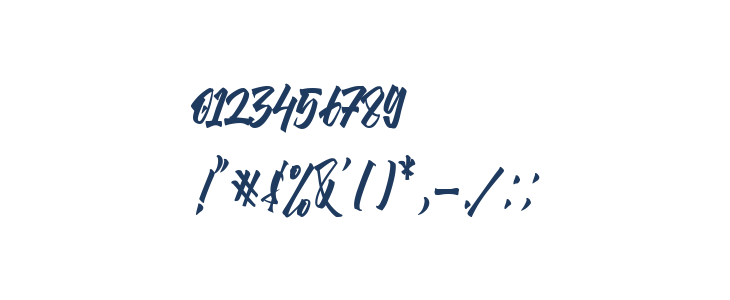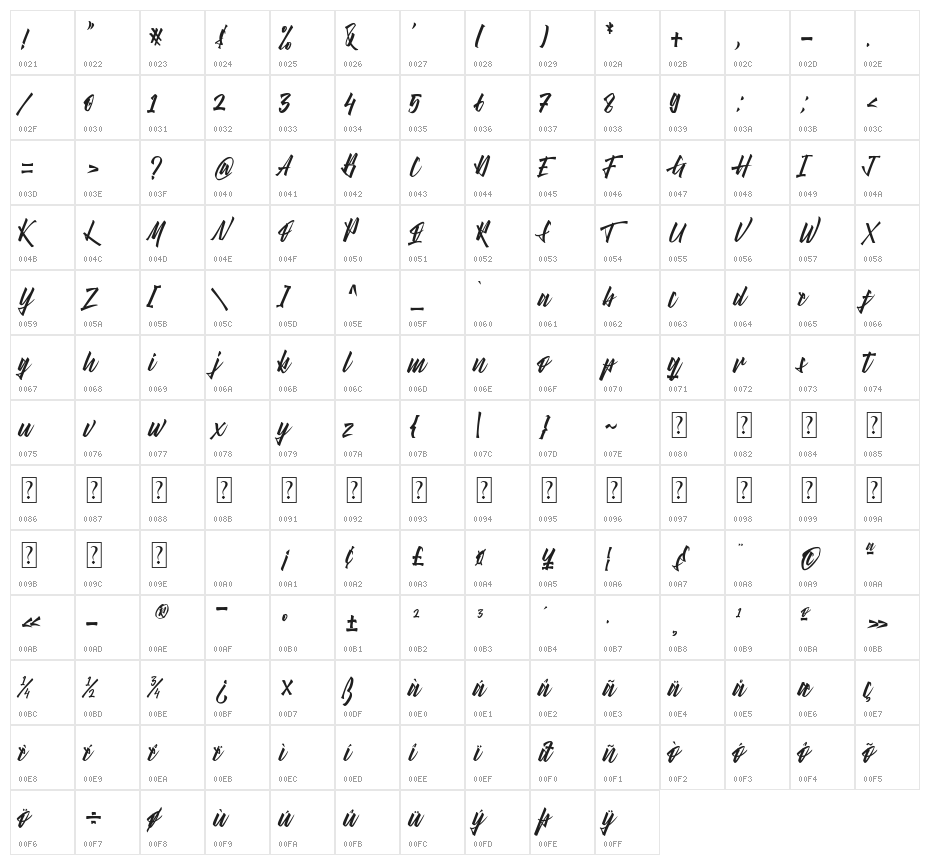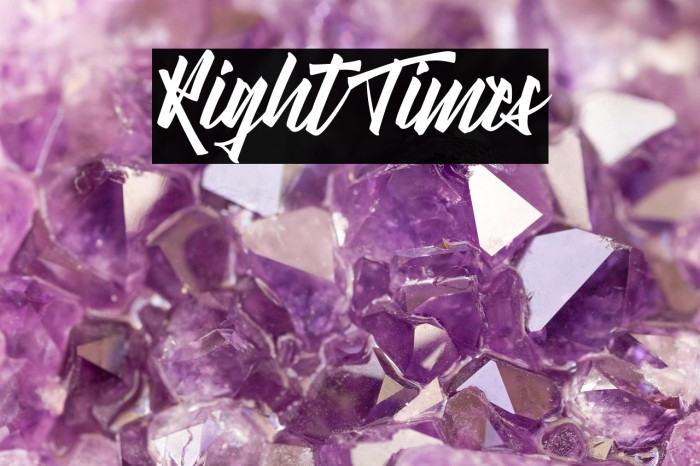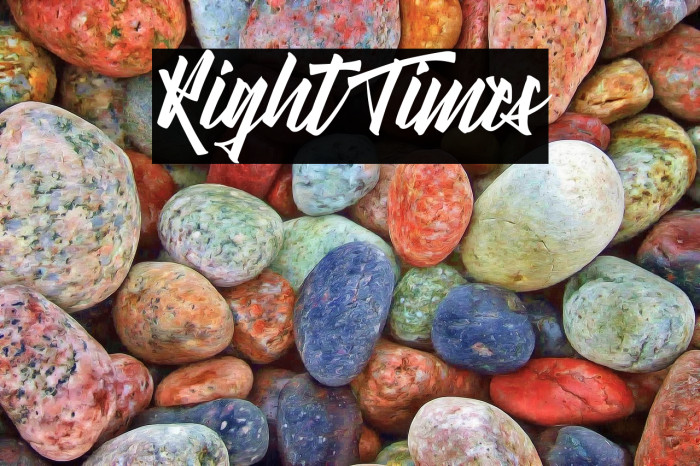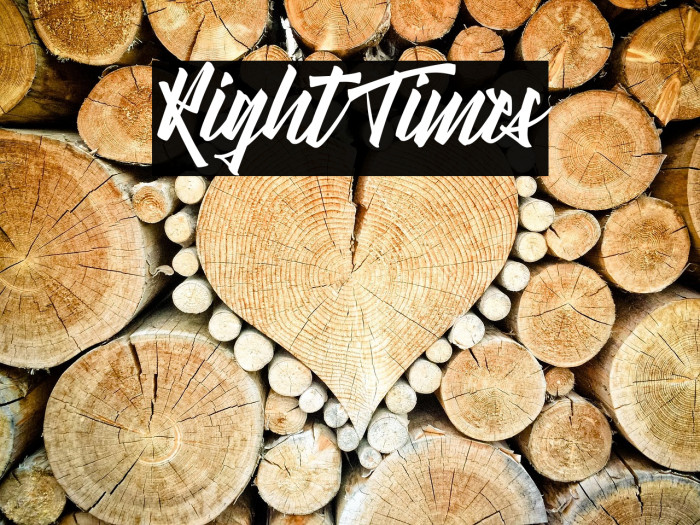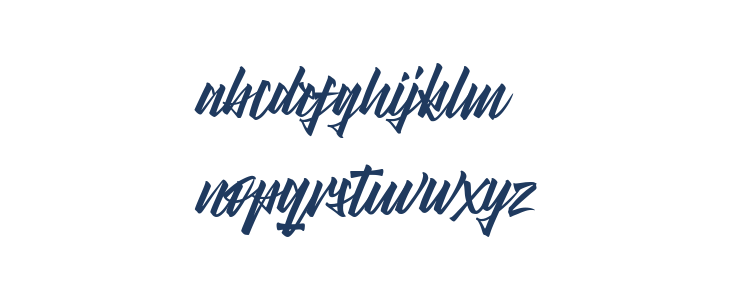
Right Times Font
Right Times Description
This font exhibits a dynamic and energetic script style, characterized by its bold and flowing strokes. The letters are interconnected, creating a sense of movement and fluidity. The uppercase letters are particularly striking, with exaggerated loops and curves that give them a dramatic flair. The lowercase letters maintain a consistent style, with smooth transitions and a slightly slanted orientation. Numbers and special characters are designed to match the overall aesthetic, ensuring a cohesive look across all text elements. This font's boldness and unique style make it stand out, making it suitable for eye-catching designs.
| Use Case | Logos, Headlines, Invitations |
| Proposed Projects | Ideal for branding projects, logo design, event invitations, and dynamic poster designs. |